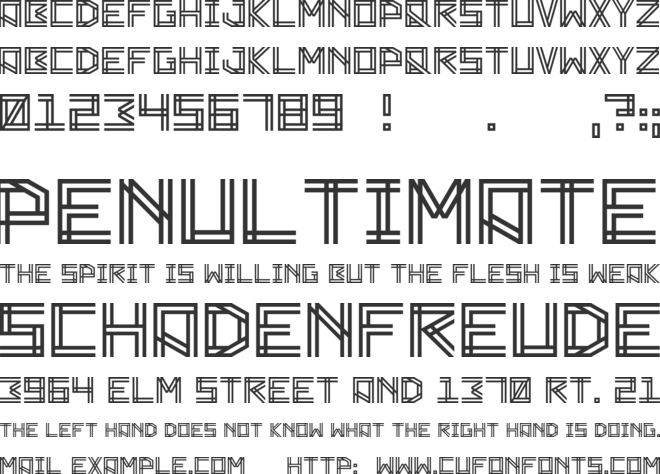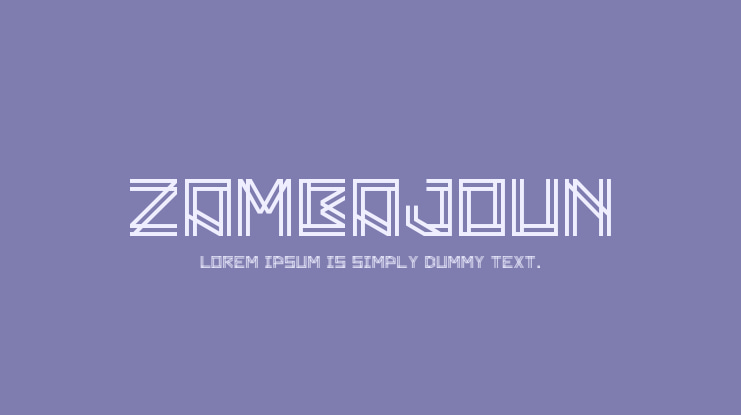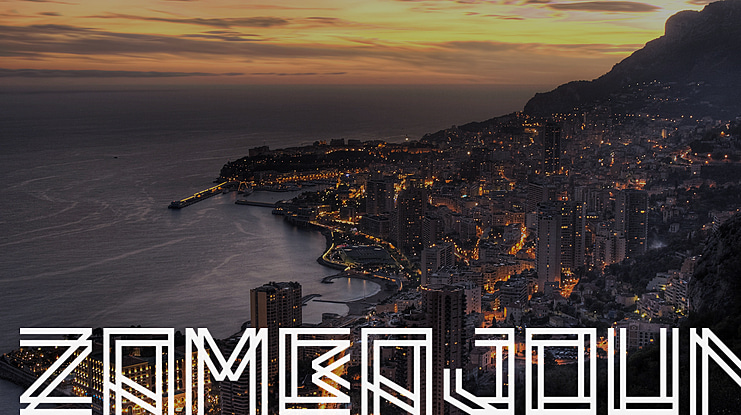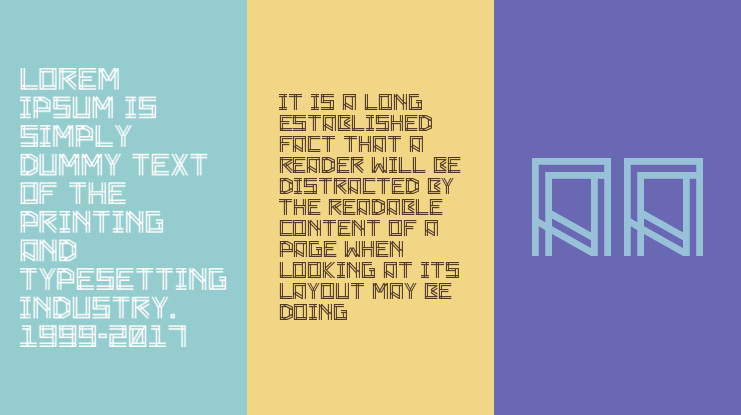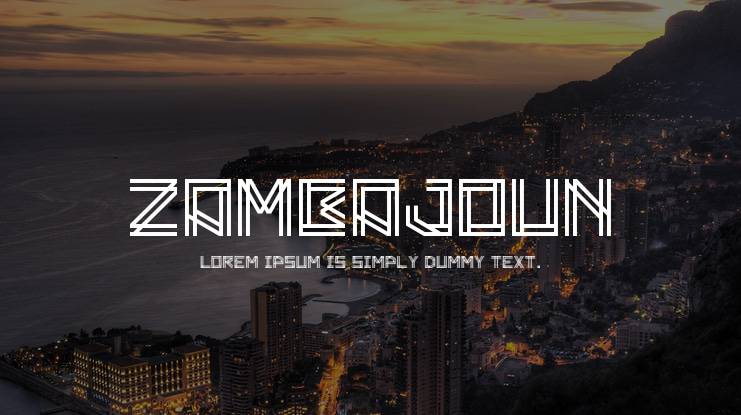
Zambajoun Font
Vertigo Design
Zambajoun is a decorative font designed by Vertigo Design, freely inspired by the historical avant-garde and modernist atmosphere of the early twentieth century. Its forms are generated from the path of a double line through a modular grid.